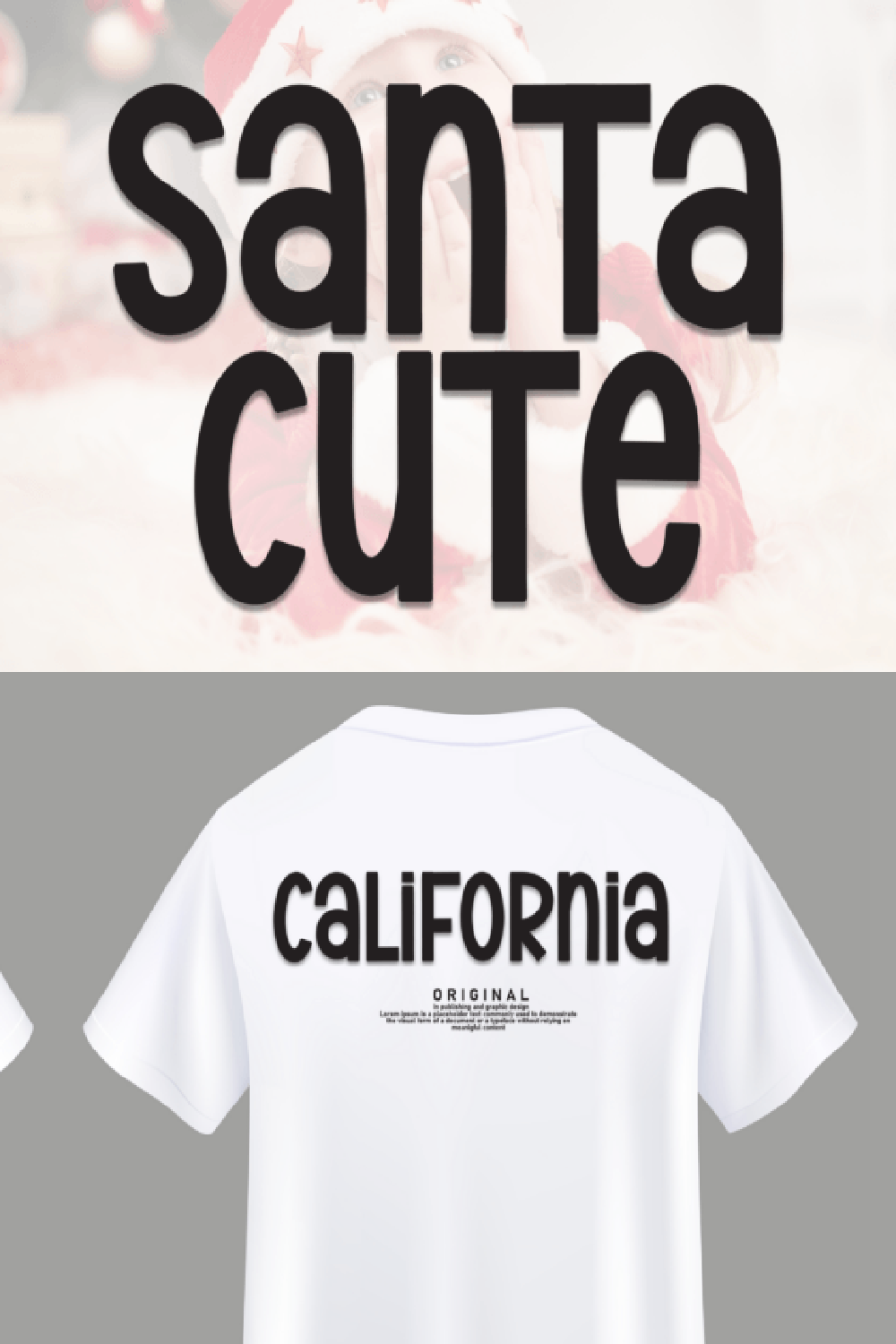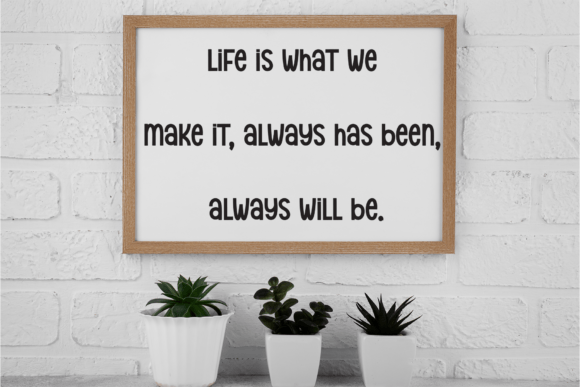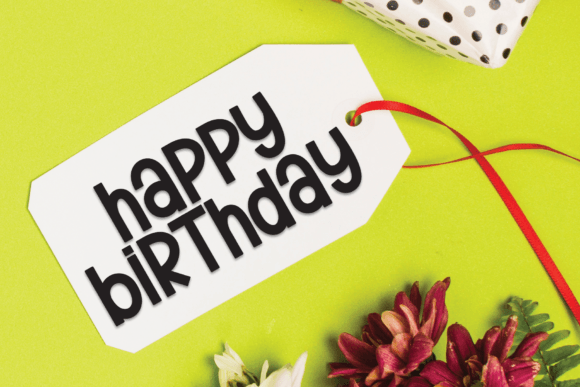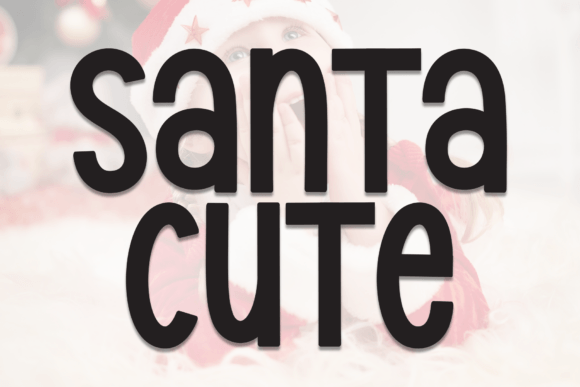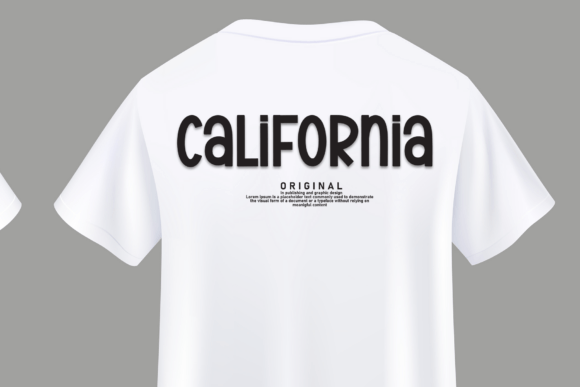
Santa Cute Font
About the Santa Cute Font
Introducing the Santa Cute Font, a beautifully crafted typeface designed to elevate your creative projects. Santa Cute is a bold, fun, and playful handwritten font. It has a cheerful, hand-drawn style perfect for holiday designs, greeting cards, posters, or any creative project that needs a joyful touch. Its bold letters are easy to read and full of personality!
Santa Cute Font Usage Examples